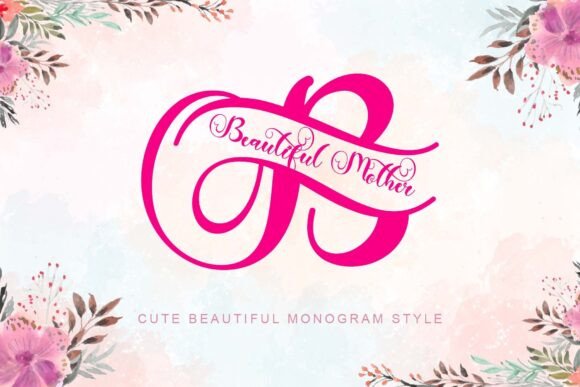
Beautiful Mother Monogram Font: Elevate Your Designs with Elegance
In the world of typography, monogram fonts hold a special place for their elegance and versatility. Among these, the Beautiful Mother Monogram Font stands out as a stunning and unique addition to any design project. Whether you’re planning a wedding, designing invitations, or simply looking for a sophisticated touch for Mother’s Day, Christmas, or any seasonal celebration, this font is equipped to add a personal and luxurious feel to your creations.
Key Features of Beautiful Mother Monogram Font
- Monograms: The font includes a variety of monograms, allowing for personalized touches that can make any project stand out.
- Uppercase and Lowercase Letters: A comprehensive set of uppercase and lowercase letters ensures flexibility in design, from headings to body text.
- Numerals and Punctuations: Complete with numerals and a range of punctuation marks, this font covers all your textual needs.
- Multilingual Support: Catering to a global audience, the Beautiful Mother Monogram Font offers multilingual support, making it perfect for projects in various languages.
Ideal Use Cases for Beautiful Mother Monogram Font
Weddings and Invitations
A wedding or an invitation deserves a font that exudes elegance and romance. The Beautiful Mother Monogram Font, with its unique monograms and sophisticated style, is perfect for wedding planners, designers, and couples looking to add a personal touch to their big day’s announcements.
Mother’s Day
Mother’s Day is a celebration of love and appreciation. Using a font that resonates with warmth and affection can make your Mother’s Day designs even more special. The Beautiful Mother Monogram Font, with its beautiful and unique monograms, is an excellent choice for creating heartfelt greeting cards, posters, and social media posts.
Christmas and Seasonal Celebrations
The festive season is a time for joy, giving, and decoration. Whether you’re designing Christmas cards, holiday-themed merchandise, or seasonal decorations, this font can add a touch of elegance and festivity to your projects.
Spring and Summer
For spring and summer-themed designs, the Beautiful Mother Monogram Font offers a versatile and stylish option. From garden party invitations to summer sale promotions, this font can elevate your designs with its fresh and sophisticated appeal.
Design Tips for Using Beautiful Mother Monogram Font
Pairing with Other Fonts
For a harmonious design, consider pairing the Beautiful Mother Monogram Font with complementary fonts. Serif fonts for body text can create a classic look, while sans-serif fonts can offer a modern contrast.
Color Schemes
The right color scheme can enhance the beauty of the font. Pastel shades can add a soft, romantic feel, perfect for weddings and Mother’s Day designs. Bright and bold colors can be used for more vibrant, playful themes.
Utilizing Monograms
Monograms are a great way to add a personal touch. Use them as initial letters in names, as standalone decorative elements, or integrated into your design for a unique look.
The Beautiful Mother Monogram Font is a versatile and elegant addition to any designer’s toolkit. Its wide range of features, including monograms, uppercase and lowercase letters, numerals, punctuations, and multilingual support, make it suitable for various projects. Whether you’re designing for weddings, Mother’s Day, Christmas, or any other celebration, this font can help you create stunning and memorable designs.